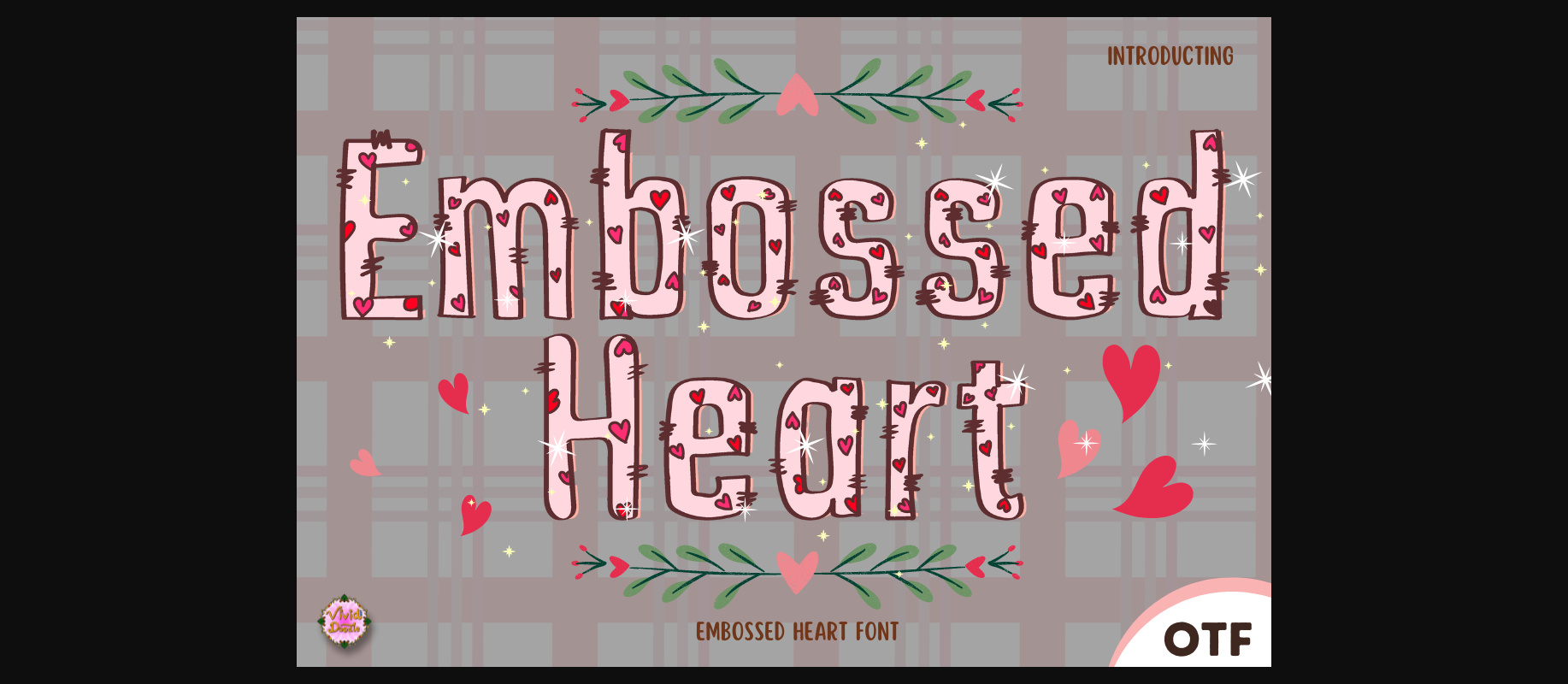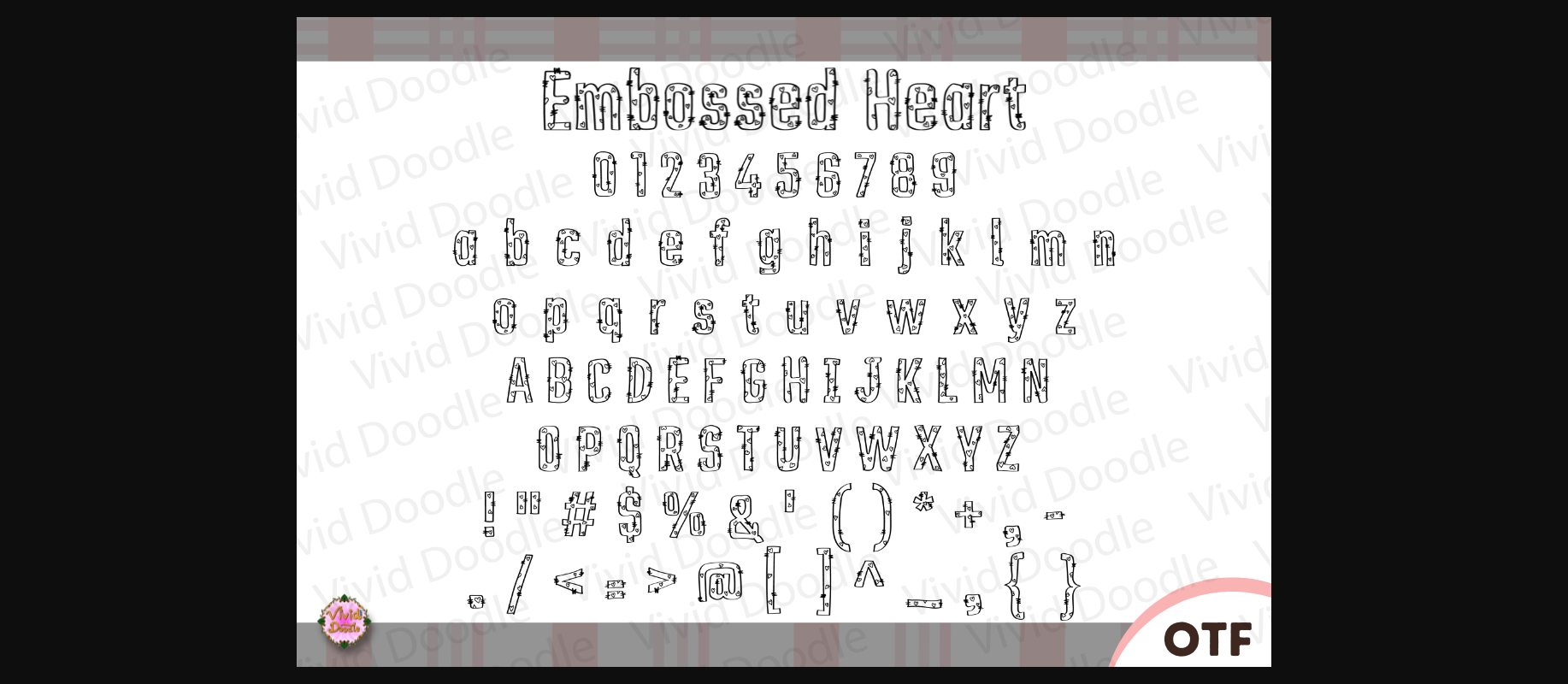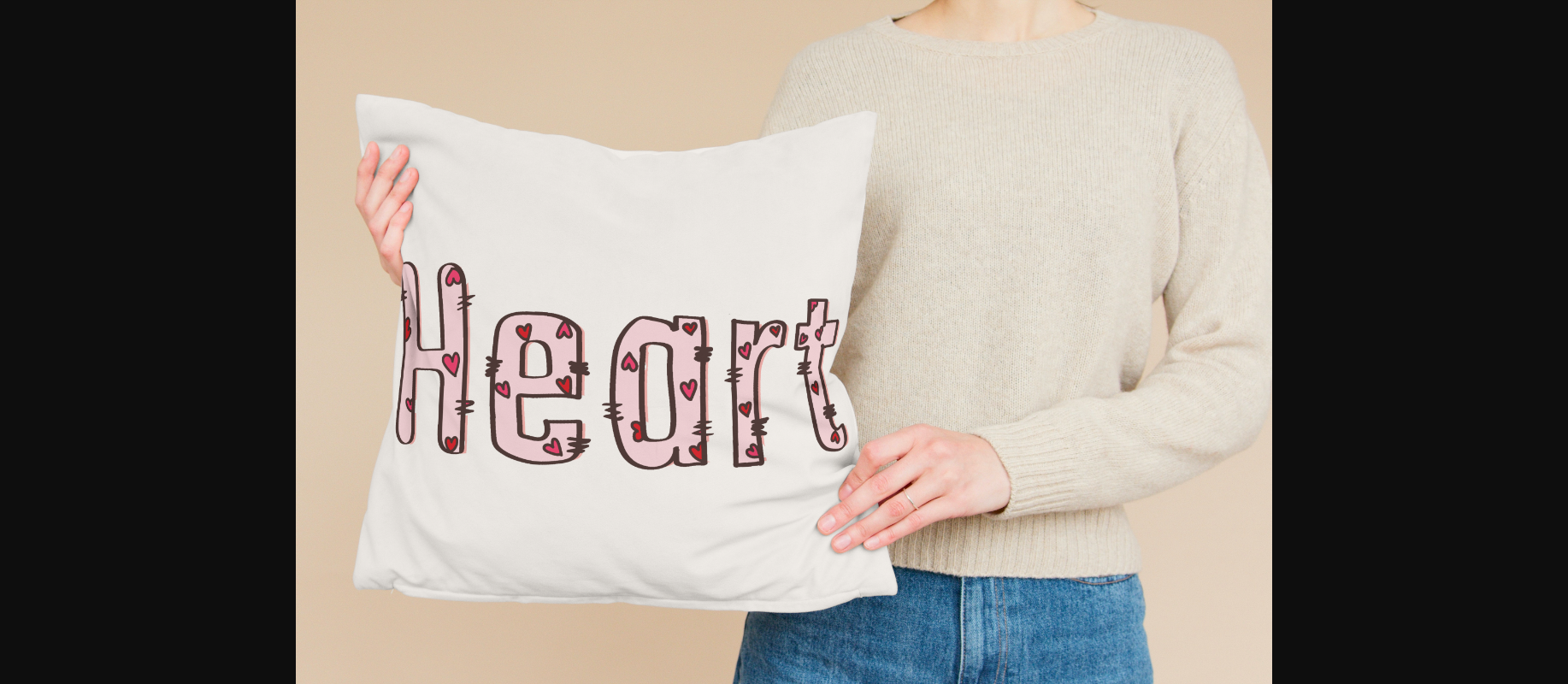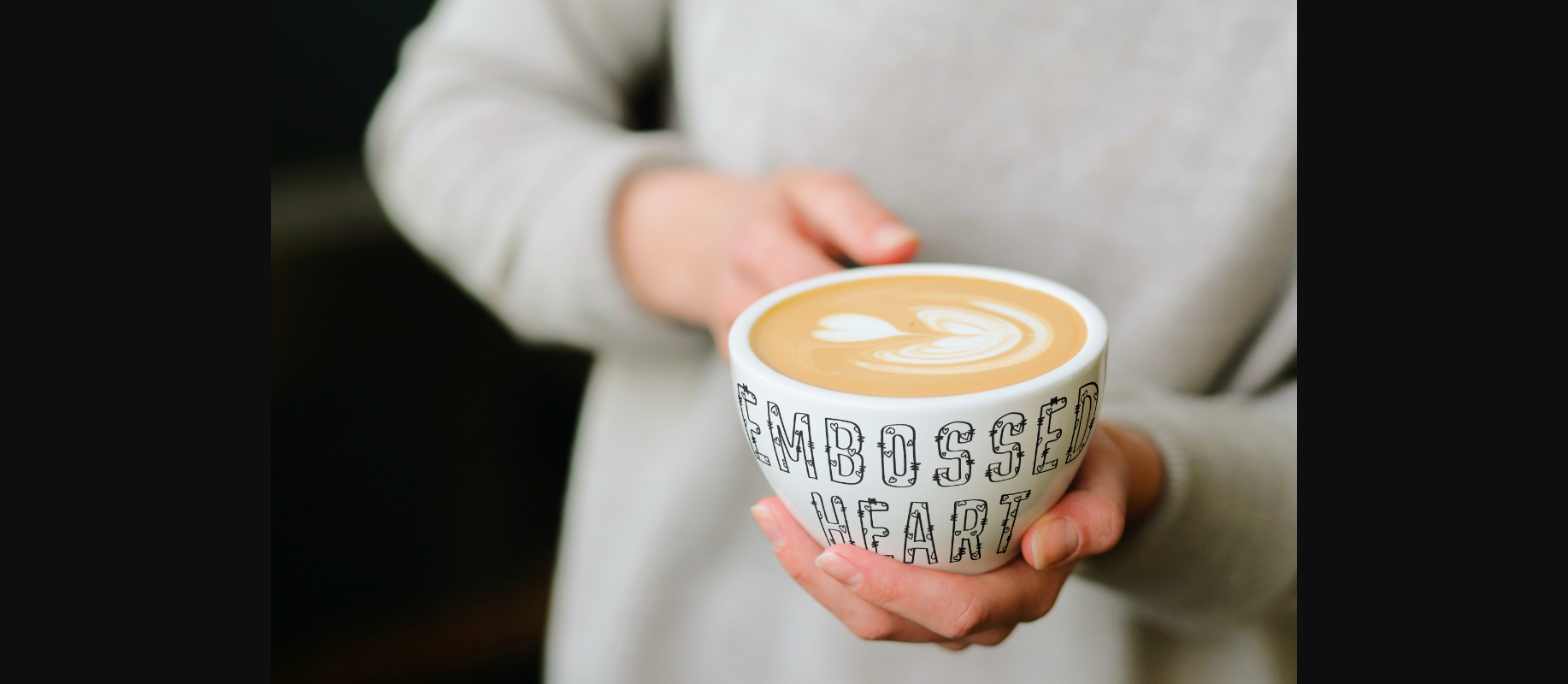
Embossed Heart Font
About Embossed Heart Font
Introducing the Embossed Heart font, a sensational design masterpiece carefully created to grace the finest moments of Valentine’s Day and other celebratory occasions. This font will bring a loving touch to your invitations, cards, and messages – ensuring your words leave a deep impression in the hearts of your loved ones. It’s the quintessential typography choice for expressing love, adoration, and joy. Passionately designed, the Embossed Heart font emanates affection, adding a unique dimension to every communication it touches. Get ready to embrace the charm of Valentine’s Day with every delightful stroke of the Embossed Heart font.